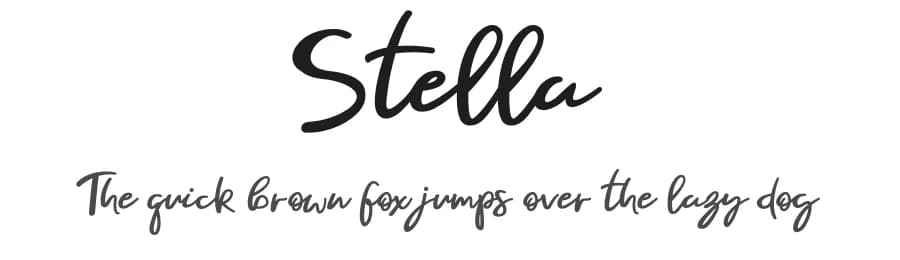
About Stella Font
Stella is a script & handwritten font designed by Sudarman Mulka. It includes 513 glyphs, a regular weight, OTF (CFF) format, and 223 languages. Stella is free to download; check the license details on this page before commercial use. Script & handwritten fonts like Stella work best for wedding invitations, greeting cards, signatures, and elegant branding.
Stella Font is a script font that shines as a display or heading face. Pair it with a clean sans-serif or serif font for body text β the contrast creates a clear hierarchy while the two styles stay balanced and easy to read.
Stella Font
Stella Font is a script handwritten typeface by Sudarman Mulka, ideal for logos, invitations, branding, and creative projects.